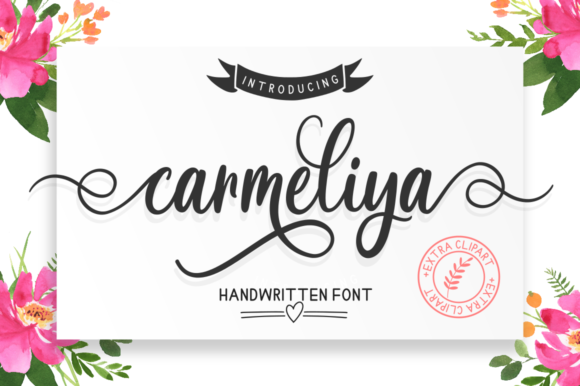
Welcome to the world of Carmeliya Font, a charming and distinctive script font that's sure to enchant your crafting journey! Immerse yourself in the realm of creativity as you discover the elegance and playful spirit of this exquisite font. With Carmeliya, every project becomes a canvas for your imagination to bloom. Whether you're designing wedding invitations, crafting personalized cards, or adding a touch of whimsy to your social media posts, Carmeliya is your perfect partner.
Crafted with precision and passion by the talented kammaqsum, Carmeliya Font is a visual masterpiece that speaks to the heart. Its delicate curves and swashes dance across the page, leaving a trail of enchantment in their wake. Each carefully crafted letter exudes a sense of joy and playfulness, inviting you to unleash your inner artist.
Carmeliya's versatility extends far beyond its charm. With its ability to seamlessly blend with various styles and themes, this font becomes an indispensable tool for any creative endeavor. From rustic wedding invitations to modern social media posts, Carmeliya effortlessly adapts, adding a touch of elegance and uniqueness to every project.
Loved and cherished by a global community of crafters, designers, and artists, Carmeliya has earned its reputation as a font that breathes life into your creations. Whether you're a seasoned pro or just starting your creative journey, Carmeliya is the font that will elevate your projects to new heights of beauty and sophistication.
So, embark on a journey of creativity with Carmeliya Font by your side. Discover the boundless possibilities that await you as you let your imagination run wild. Let the magic of Carmeliya transform your designs into works of art that captivate and inspire. The world of beauty and creativity awaits – all you need is Carmeliya to unlock its secrets.